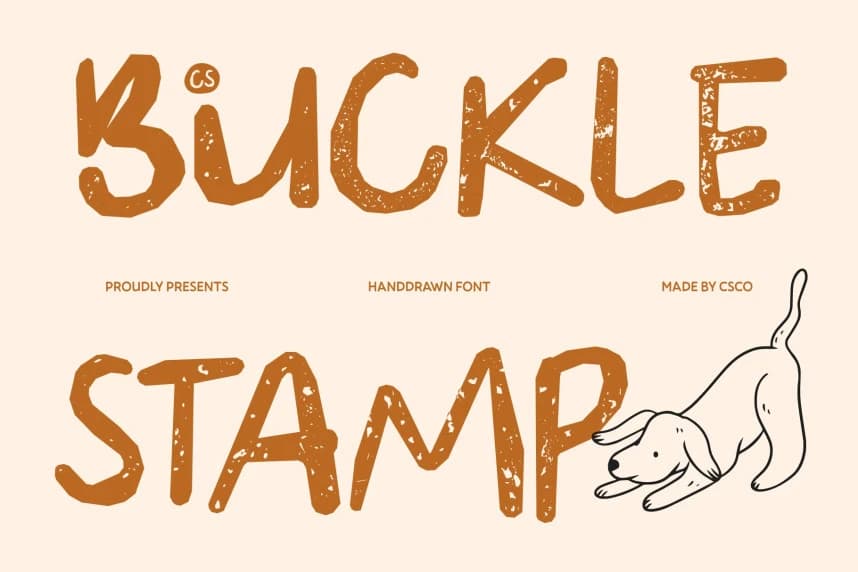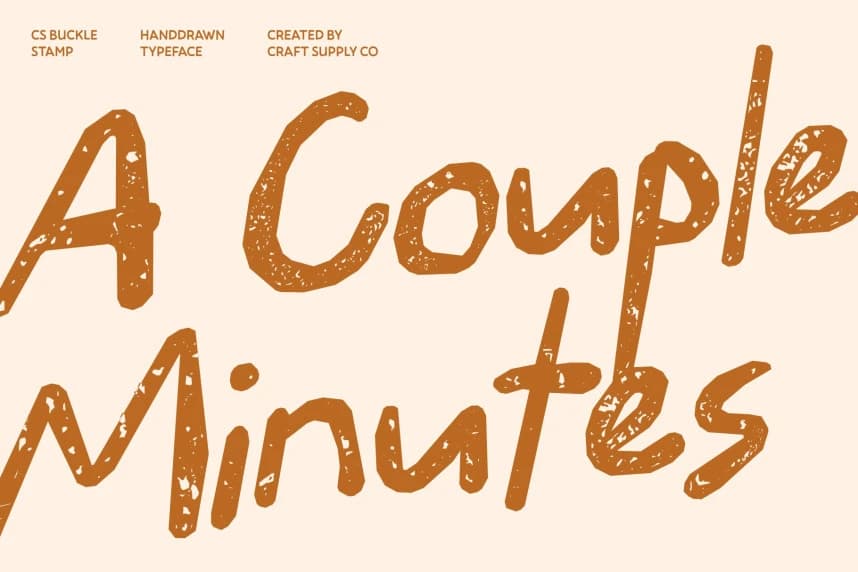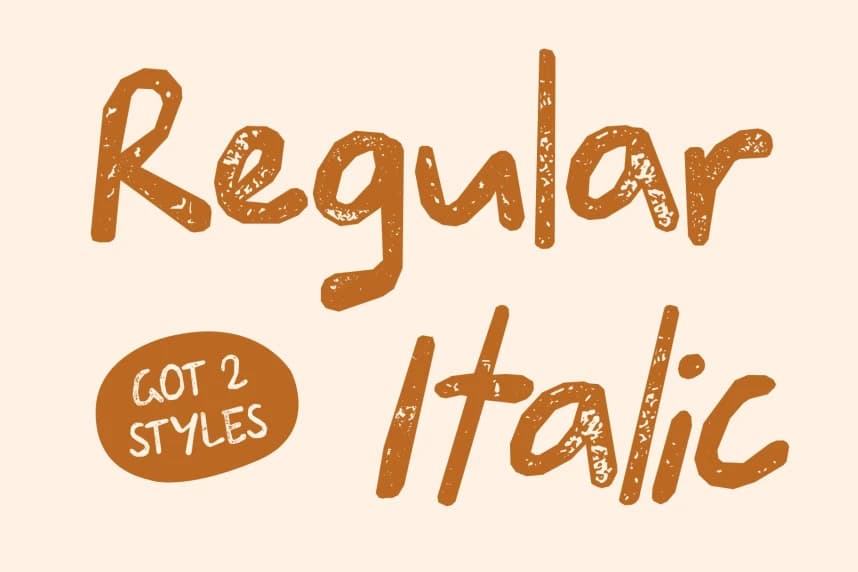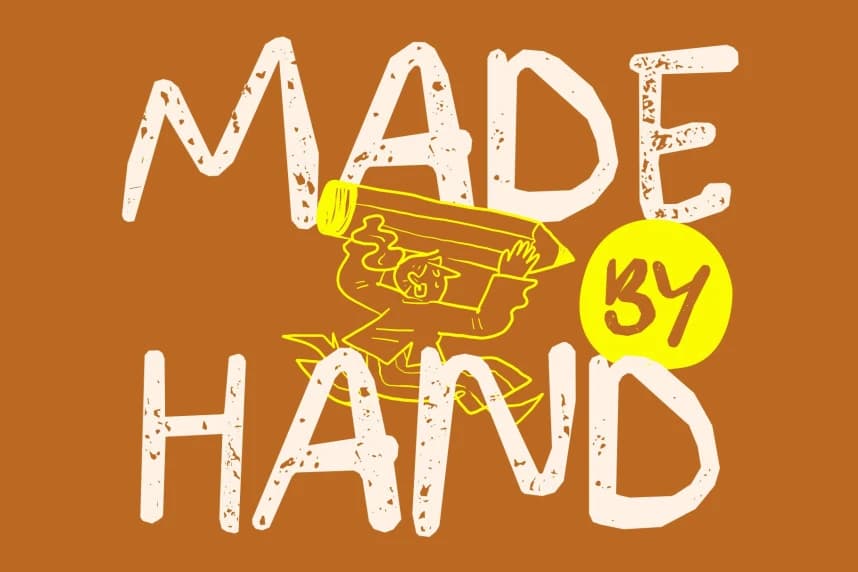
CS Buckle Stamp Font
CS Buckle Stamp Font – Imperfectly Bold with Playful Rebellion Ugly Font with Irregular Strokes. This is a “ugly” display font that proudly celebrates imperfection. Built with a sans serif foundation, its irregular strokes and unpolished letterforms create a raw